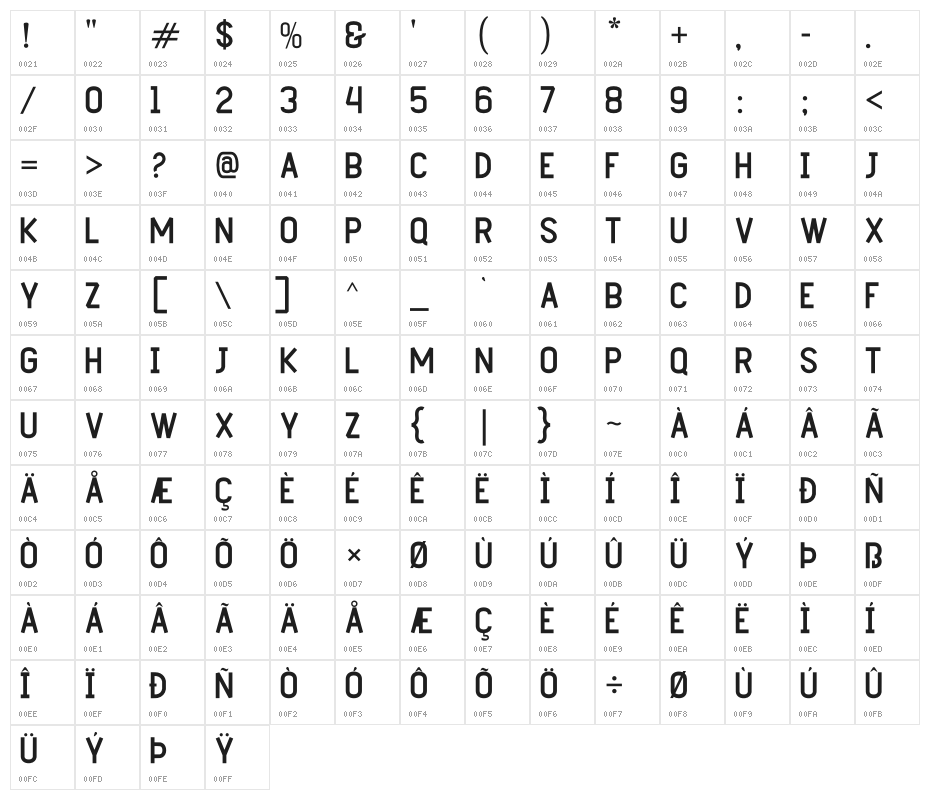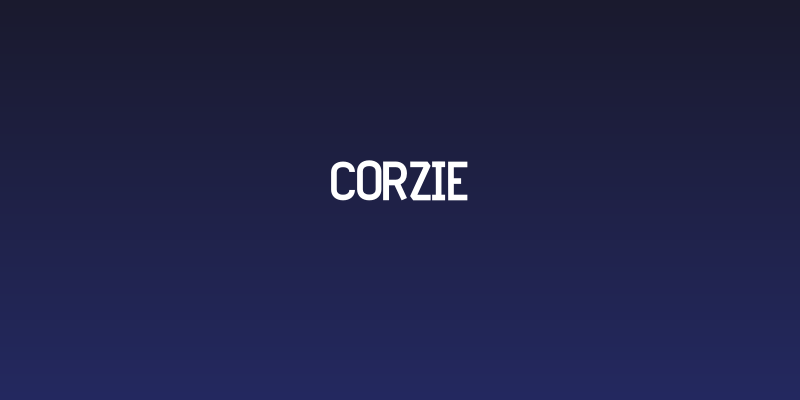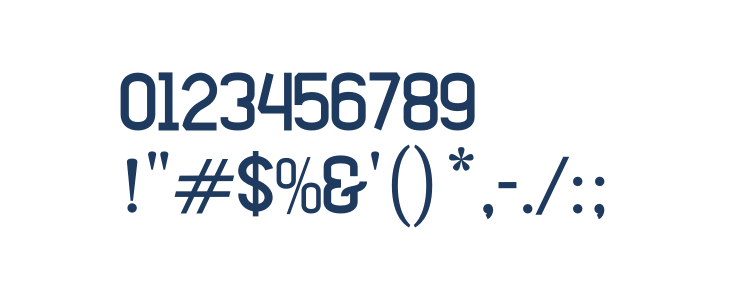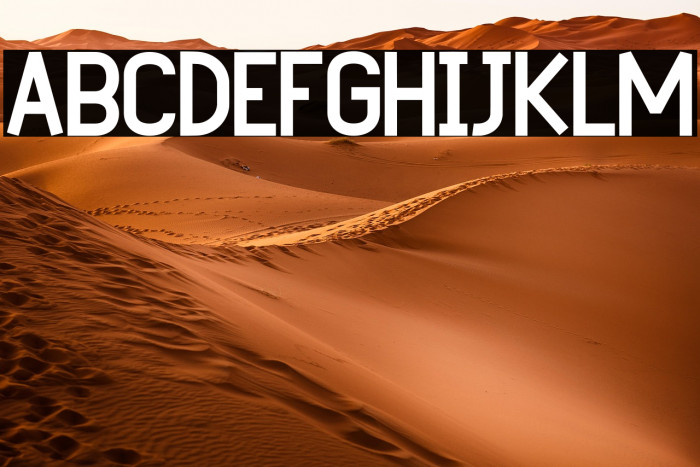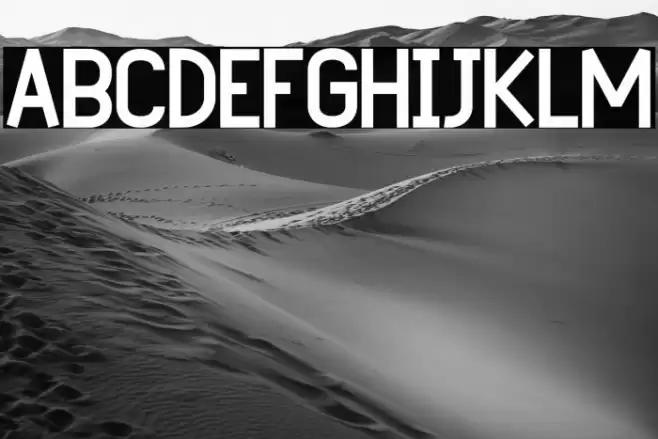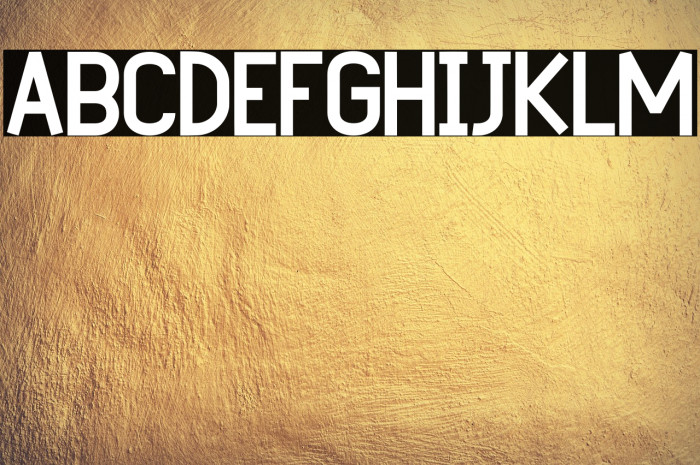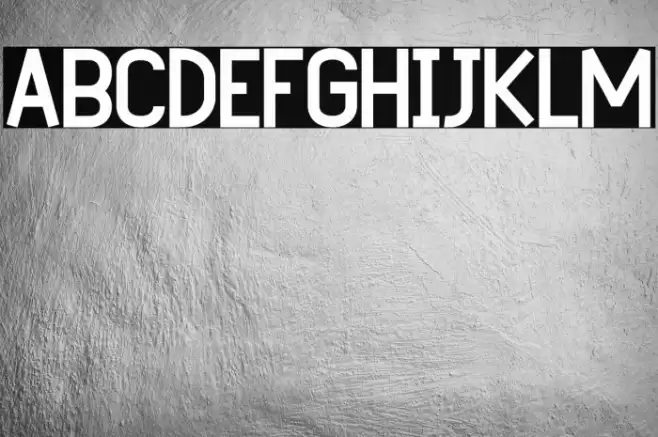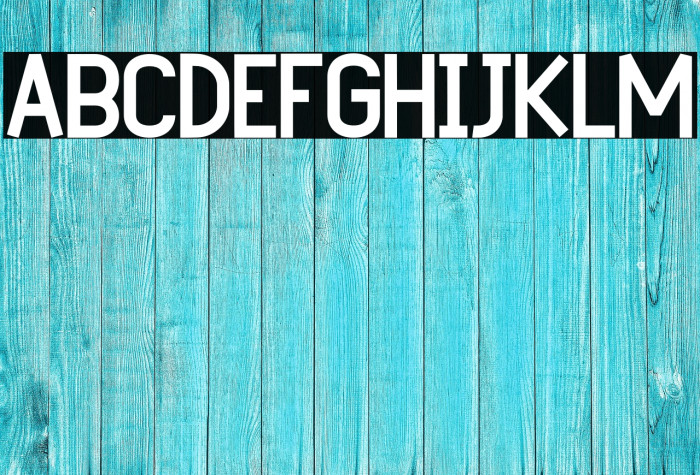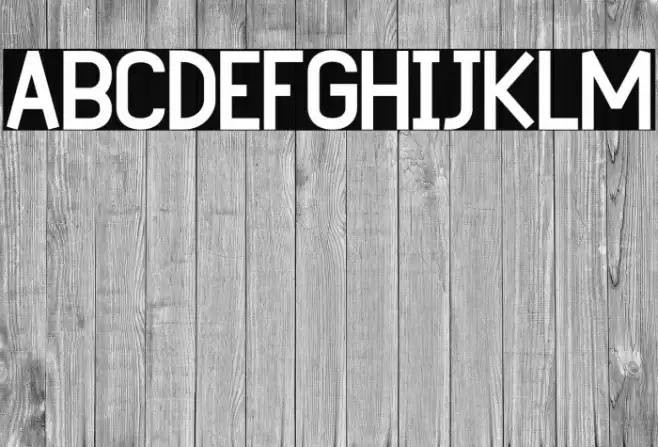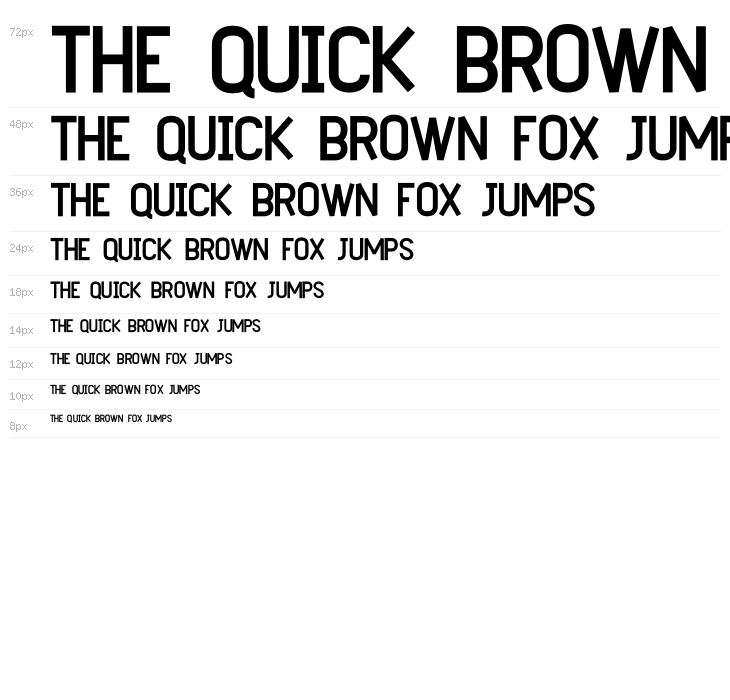
Corzie Font
Corzie Description
This font features a bold and modern sans-serif style with clean, straight lines and a geometric structure. The characters are uniform in width, providing a balanced and cohesive appearance. The uppercase and lowercase letters maintain a consistent height, enhancing readability. The numerals are clear and distinct, making them suitable for various applications. Special characters are well-defined, adding versatility to the font's usage. The overall design is sleek and contemporary, ideal for projects that require a strong visual impact.
| Use Case | Headlines, Logos, Digital Media |
| Proposed Projects | Ideal for branding, advertising, headlines, and digital media projects. |